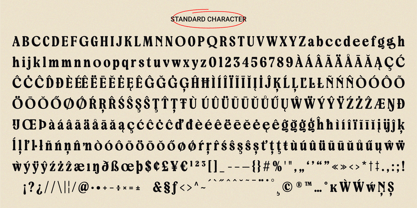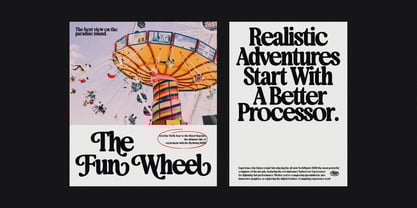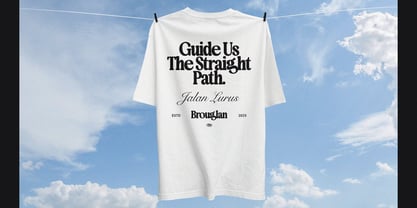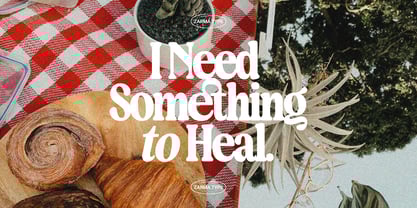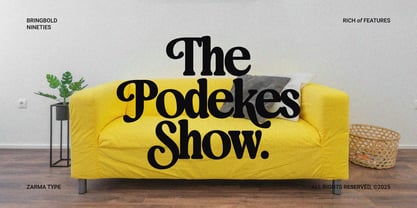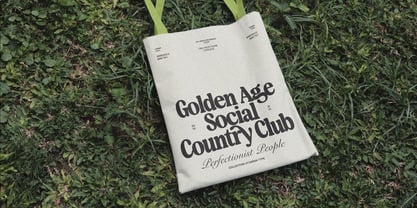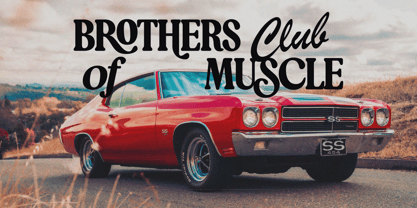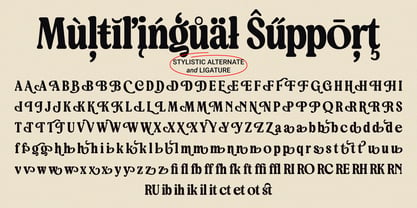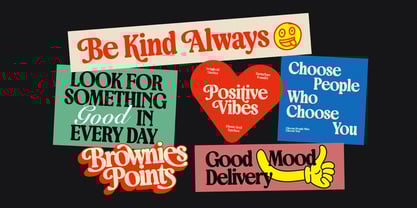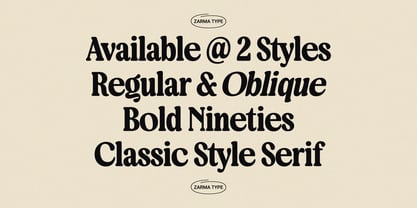
Bringbold Nineties
by Azzam Ridhamalik
The Bringbold Nineties Font Family was designed by Azzam Ridhamalik and published by Azzam Ridhamalik. Bringbold Nineties contains 2 styles and family package options.
Bringbold Nineties is a classic serif font that captures the essence of 90s retro design with a modern twist, blending bold characteristics with crisp serif details for the perfect balance of nostalgia and contemporary readability. Featuring two styles—Regular and Slanted—along with extensive OpenType features such as stylistic alternates, decorative swashes, contextual alternates, and custom ligatures, this font offers endless creative possibilities while maintaining a timeless aesthetic.
Designed for retro branding, vintage packaging, editorial headers, album covers, posters, restaurant branding, and fashion labels, Bringbold Nineties supports multiple languages, includes PUA-encoded characters, optimized kerning, and a complete punctuation set, making it the ideal choice for designers seeking to create impactful and memorable visual identities.